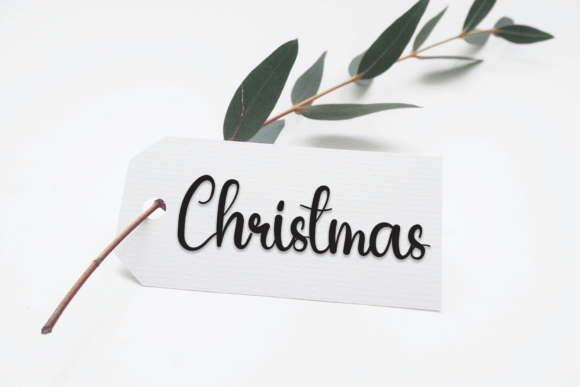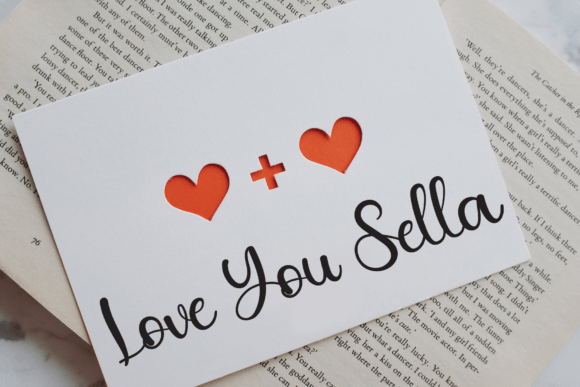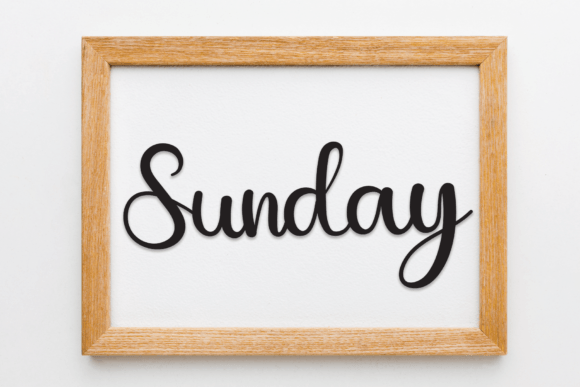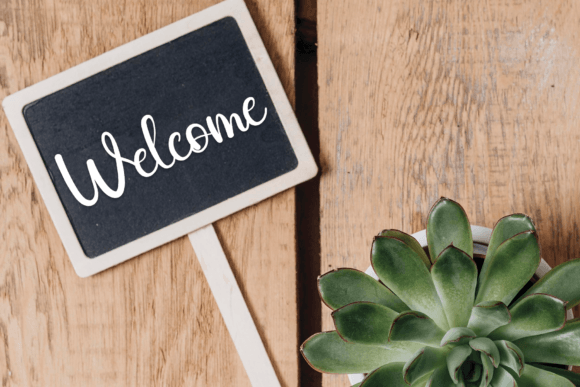
Introduction to Hey Planner Font
Have you ever found yourself rummaging through your stash of art supplies, searching for the perfect font to bring your creative project to life? The moment of discovery is always thrilling – and for many designers, that moment came when they stumbled upon the Hey Planner Font.
With its simple, friendly handwriting style, the Hey Planner Font has quickly become a favorite among designers, crafters, and anyone looking to add a personal touch to their work. Whether you’re creating digital designs, presentations, or greeting cards, this versatile font is sure to become a valuable addition to your design resource arsenal.
Not only is the Hey Planner Font a great choice for creative projects, but it’s also free to download and comes with a transparent background, making it perfect for use on any background or design element. In this article, we’ll take a closer look at the features and benefits of the Hey Planner Font, and why it’s a must-have for any designer looking for high-quality, unique font options.
Key Features of Hey Planner Font
- High-quality design resource perfect for creative projects, offering a modern and elegant style.
- Features a clean and minimalist design, ideal for planners, journals, and other organizational tools.
Honest Review: Hey Planner Font
I recently had the chance to work with the Hey Planner Font, and I have to say, I’m impressed. As a designer, I’m always on the lookout for high-quality design resources that can elevate my creative projects. This font definitely fits the bill.
What works well: ✨ The font is highly customizable, making it perfect for planners and organizers who need to add a personal touch to their layouts. The transparent background is also a nice touch, allowing the user to easily layer their design elements. The font is also free to download, which is a definite bonus.
- Customizable and versatile
However, there are a few limitations: ⚠️ The font is only available in a limited number of styles, which may not be suitable for all design projects. Additionally, the font may not be as bold or attention-grabbing as some other fonts on the market.
Overall, I’m very pleased with the Hey Planner Font. It’s a solid design resource that’s perfect for planners, organizers, and anyone looking for a high-quality, customizable font. I would definitely recommend it to anyone looking to take their creative projects to the next level.
The Hey Planner Font is ideal for creating invitations, planners, journals, and other creative projects. Its transparent background and high-quality design make it perfect for overlaying on images or using as a standalone element.
Compared to Hey Planner Font, Alegranza Font has a more refined and luxurious feel, making it suitable for projects that require a high level of elegance. While Hey Planner Font is more playful and whimsical, Alegranza Font is ideal for projects that demand a sense of sophistication.